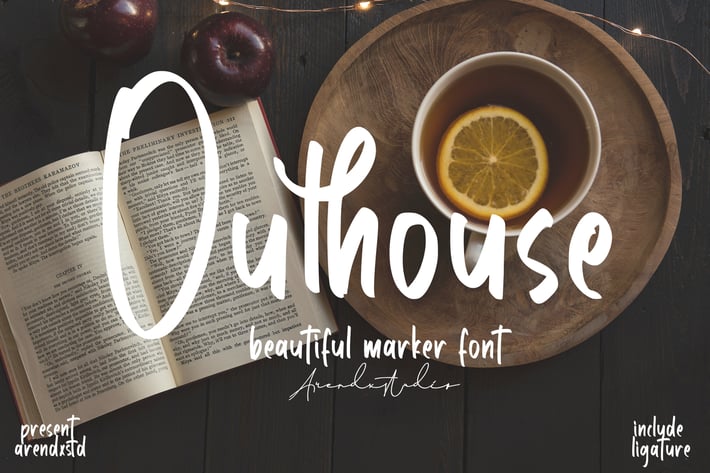
Outhouse - Marker Font
Outhouse is Handwritten marker font that looks neat and nice to look at, so it will be suitable to use for your design projects
Outhouse came with opentype features such stylistic alternates, stylistic sets & ligatures good for logotype, poster, badge, book cover, tshirt design, packaging and any more.